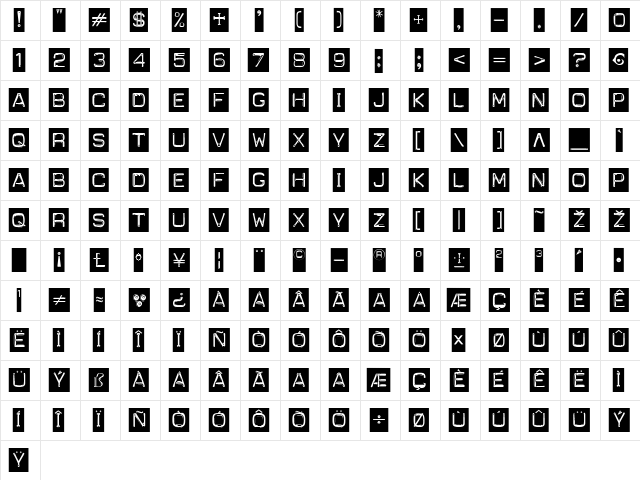
Carbon-14 Labeler Black Tape
| Foundry | CONIGLIO USA |
Design Context for Carbon-14 Labeler Typeface
Carbon-14 Labeler offers clean, dependable letterforms without strong stylistic allegiance, making it a practical choice for designers who need flexibility.
Pro Tip: Use Carbon-14 Labeler in both headline and body roles to test its range before committing to a single application.